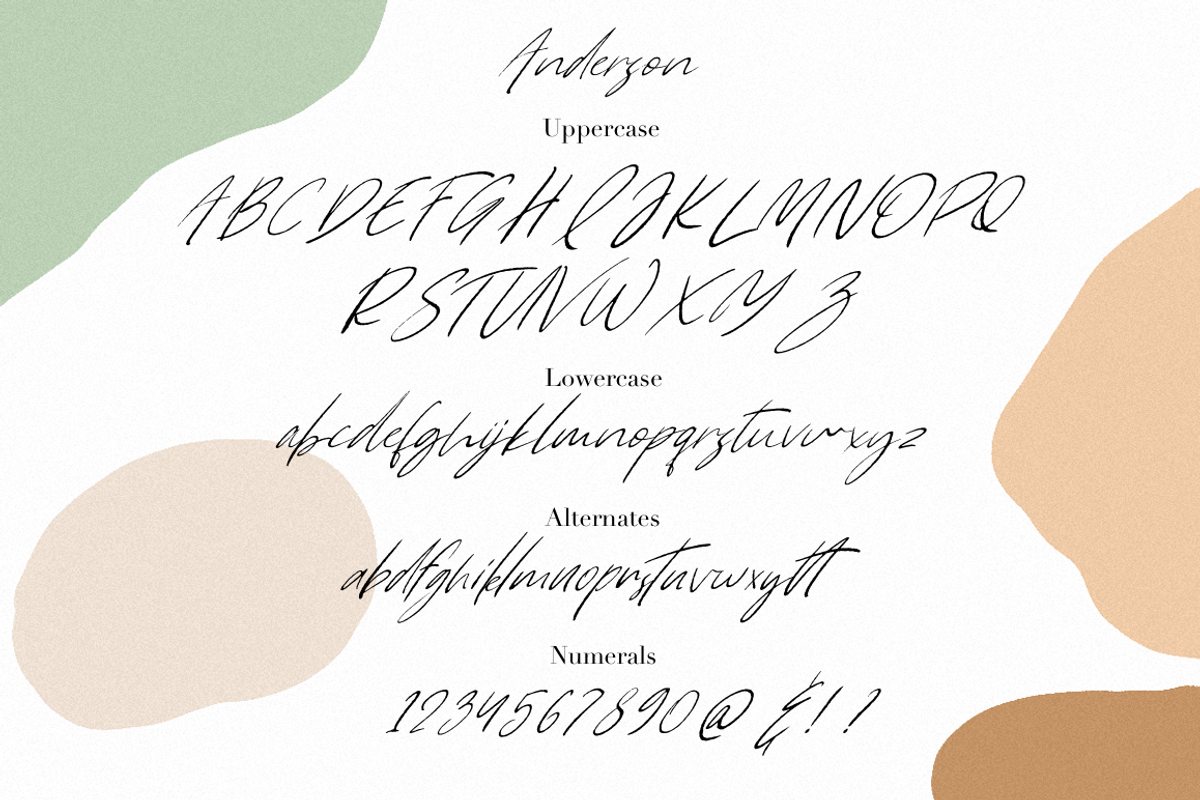
Anderson
Anderson - a new handwritten font.
This font is ideal for branding and decorate your any project, are perfect for wedding invitation or your blog. Also with their help, you can create a logo or beautiful frame for your home. Or just use for your small business, book covers, stationery, marketing, magazines and more.
Following international symbols support: ÀÁÂÃÄÅĄÇĆÈÉÊËĘÌÍÎÏÐÑŃŁÒÓÔÕÖØÙÚÛÜŚŠŸÝŹŻŽßàáâãäåçèéêëìíîïðñòóôõöøùúûüýÿąćęłńśšźżž